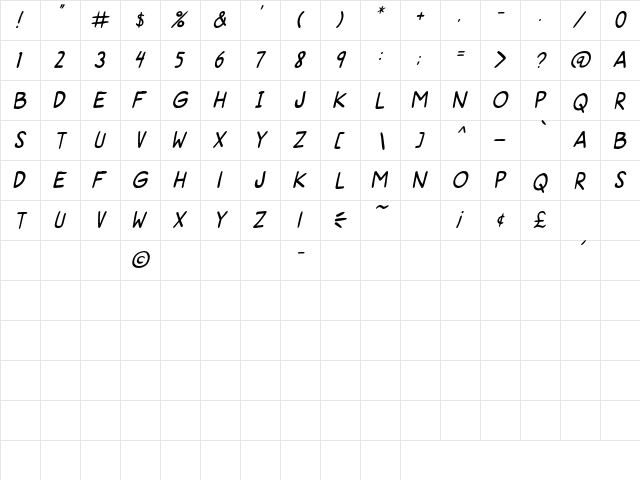
Super Gossip Italic
Design Context for Super Gossip Typeface
Super Gossip is a composed and adaptable typeface that performs quietly and consistently across a wide range of design contexts. Its italic angle brings a sense of urgency and motion to the letterforms.
Pro Tip: Use Super Gossip for emphasis, pull quotes, and subheadings where its slanted energy can add rhythm to the layout.